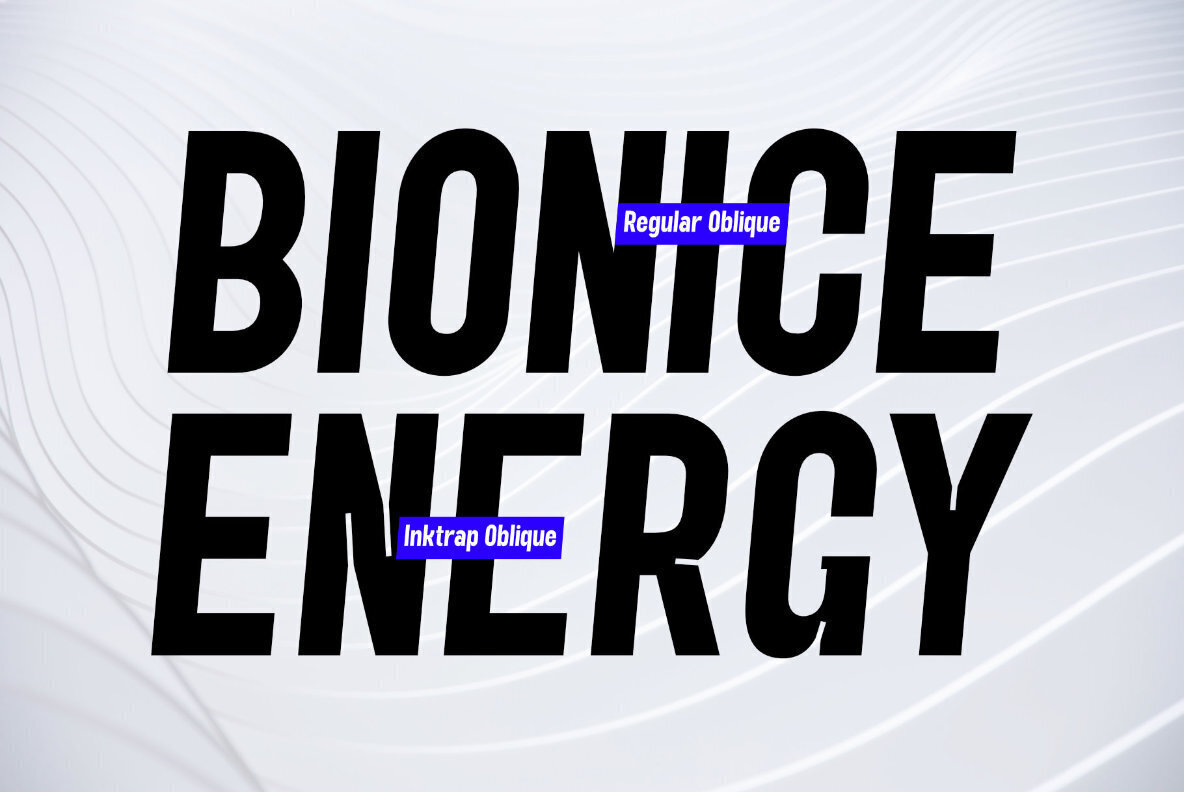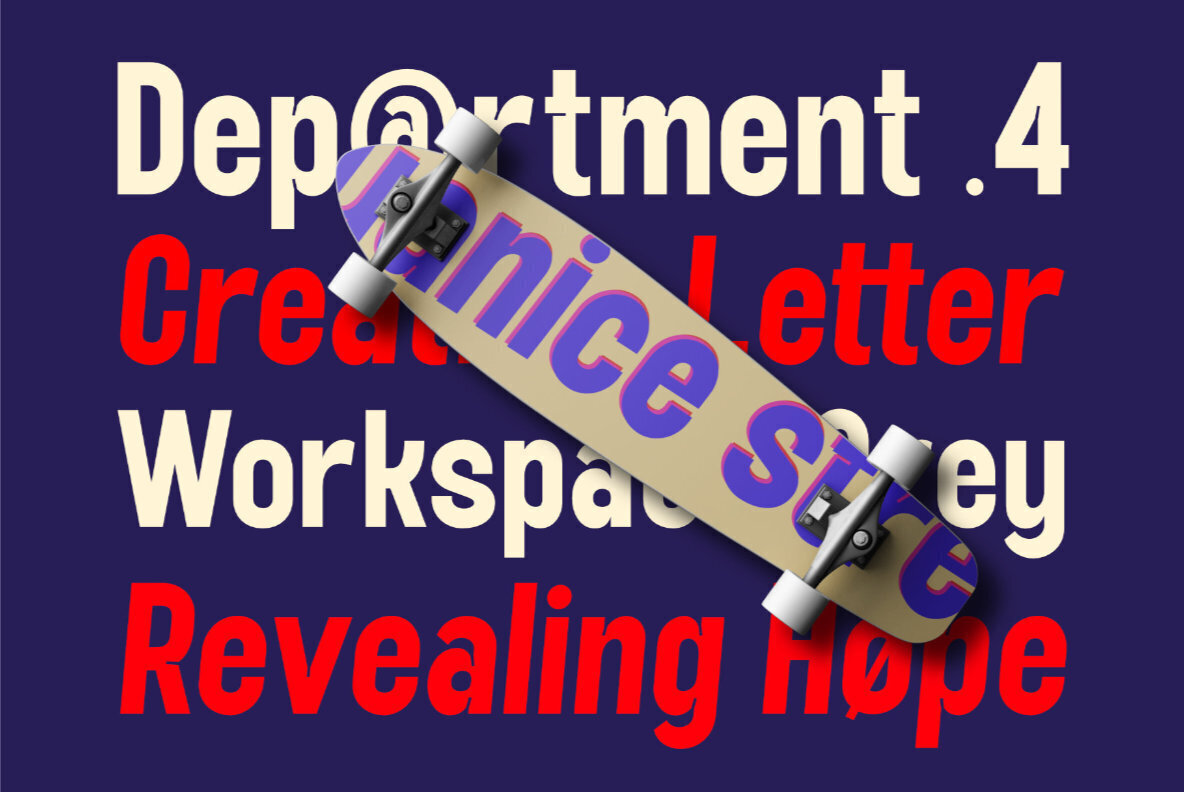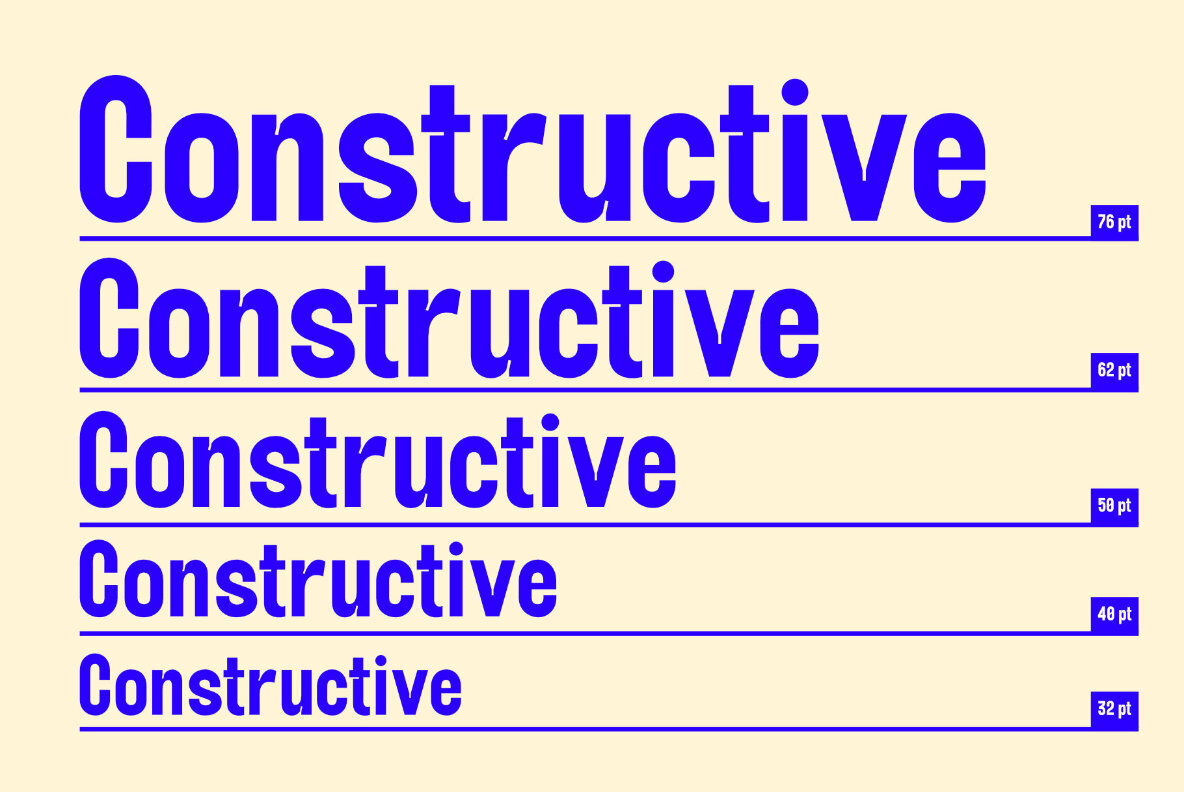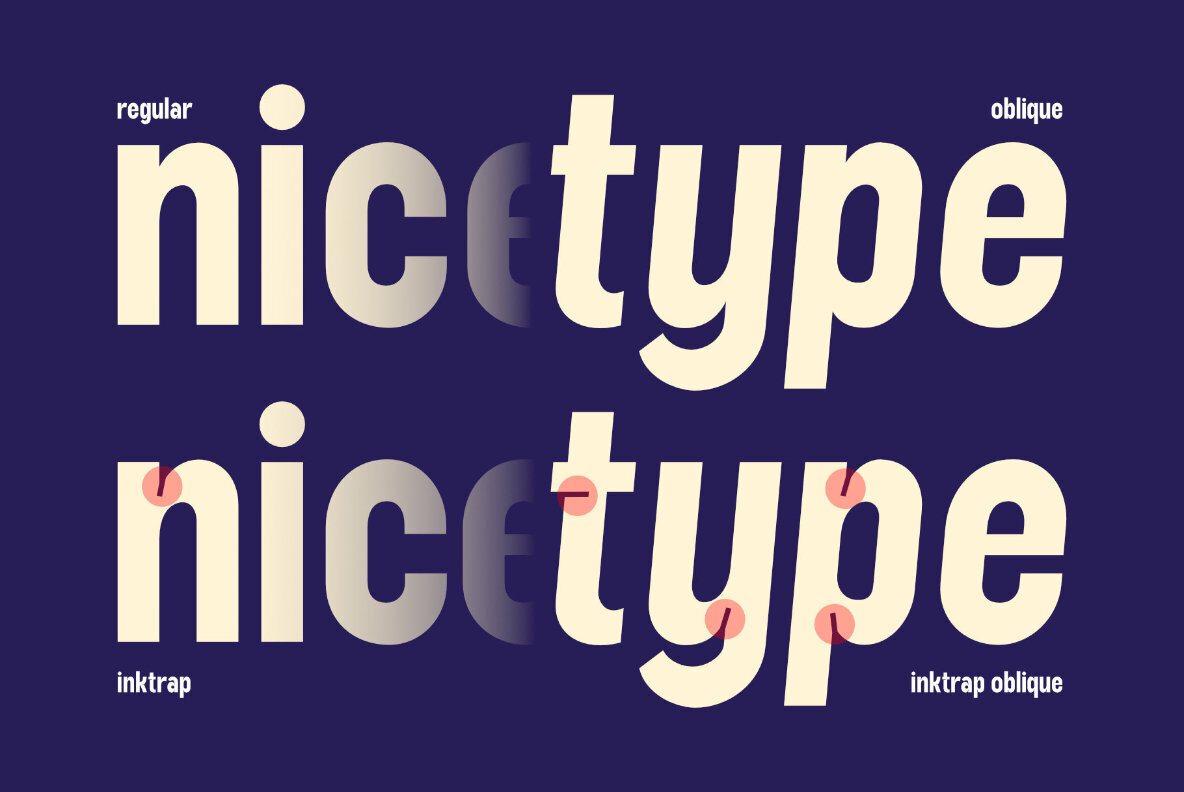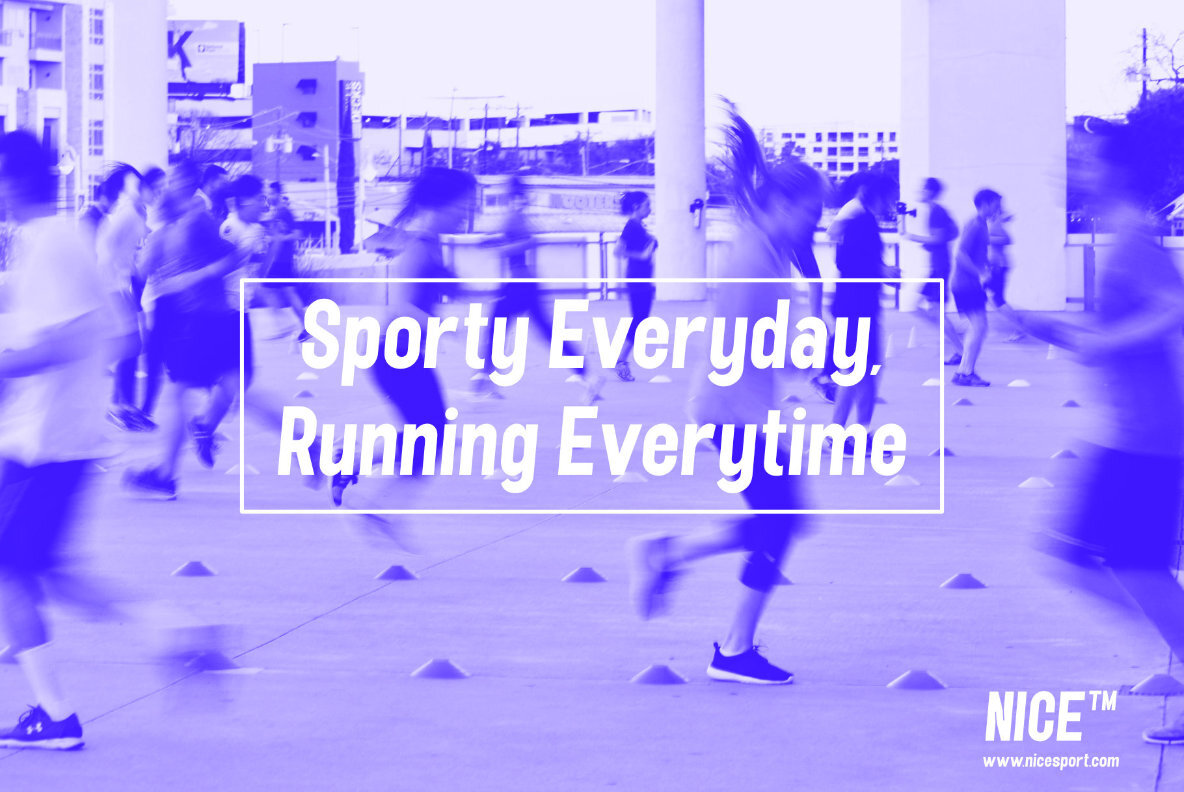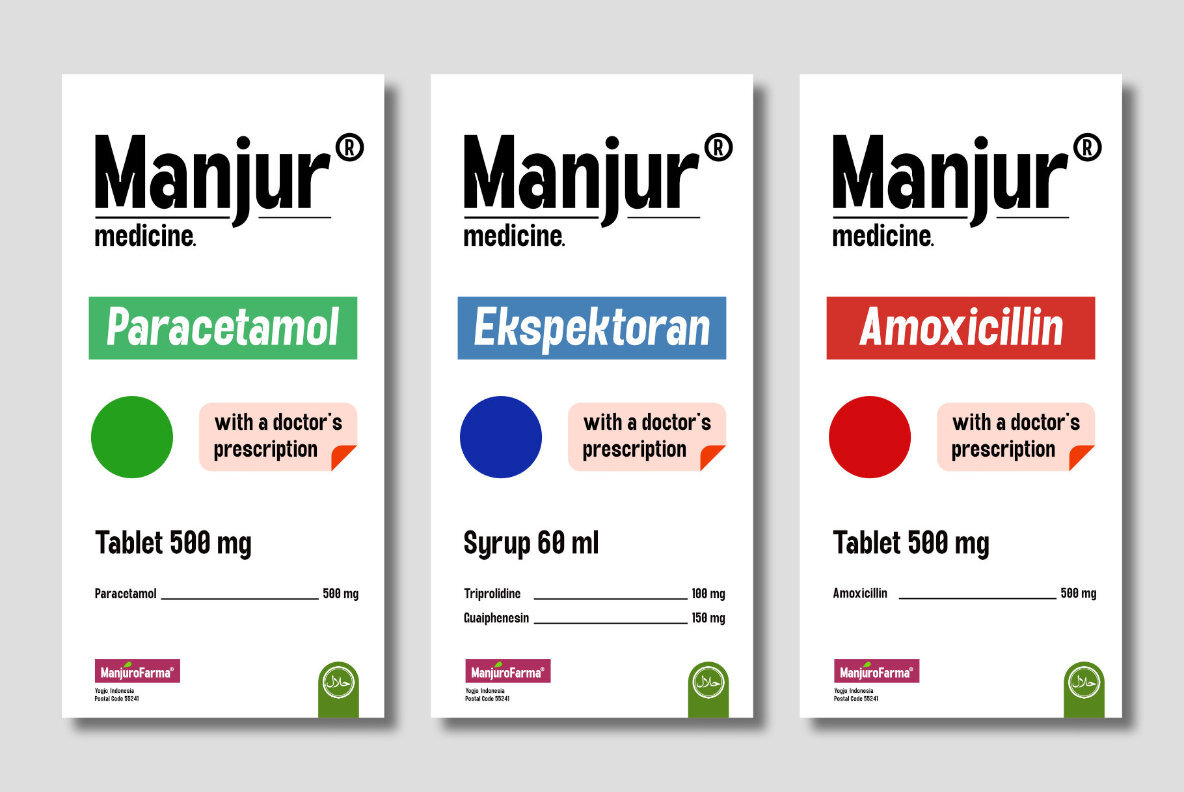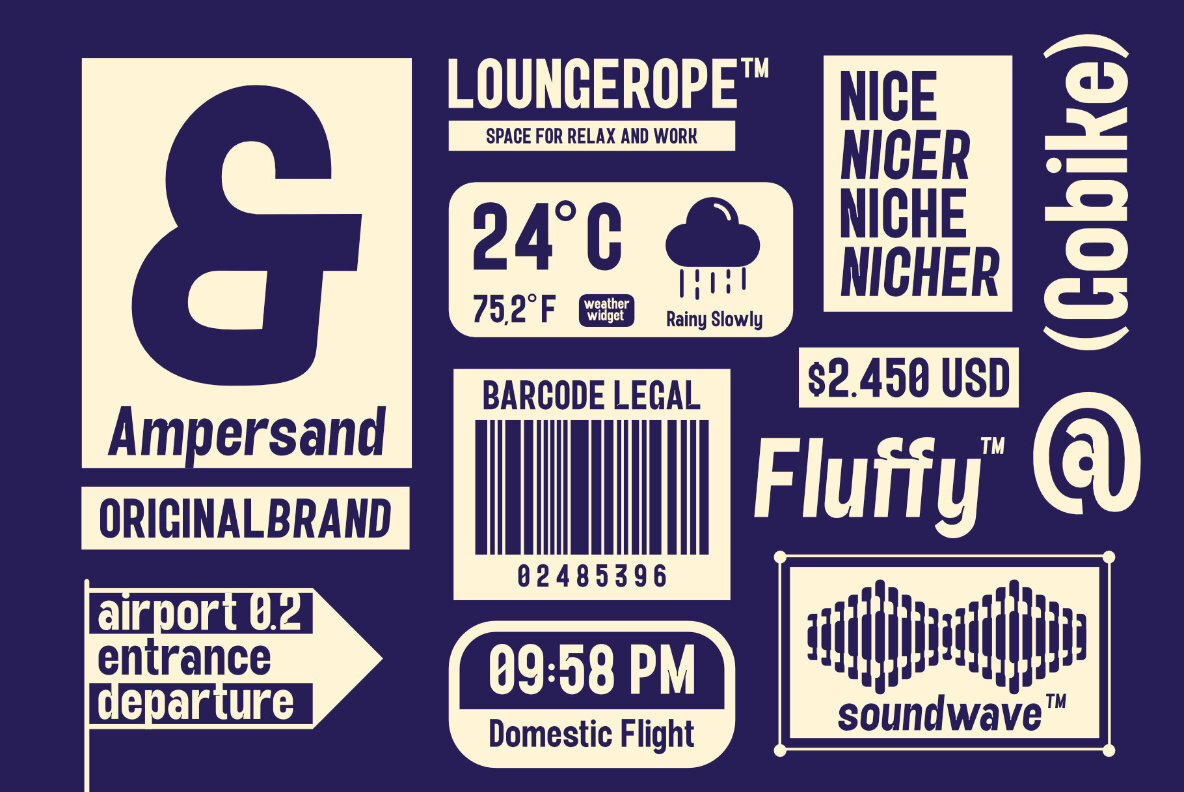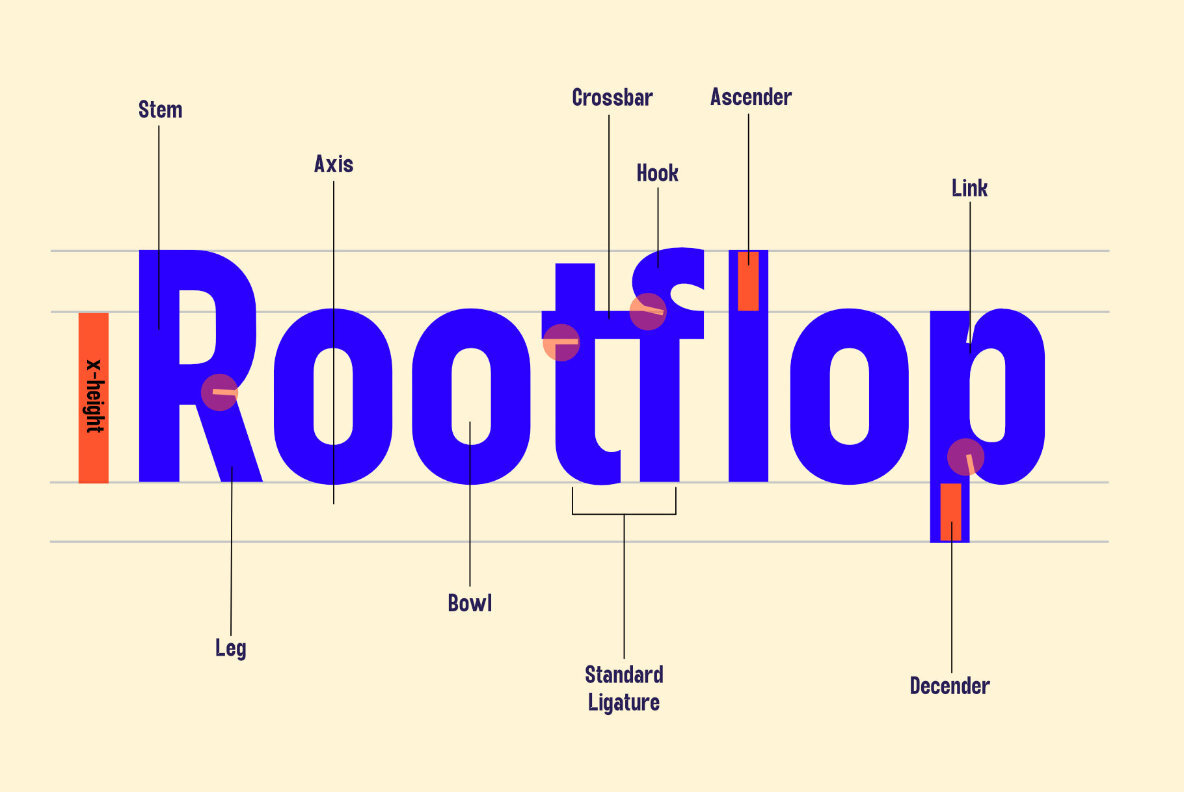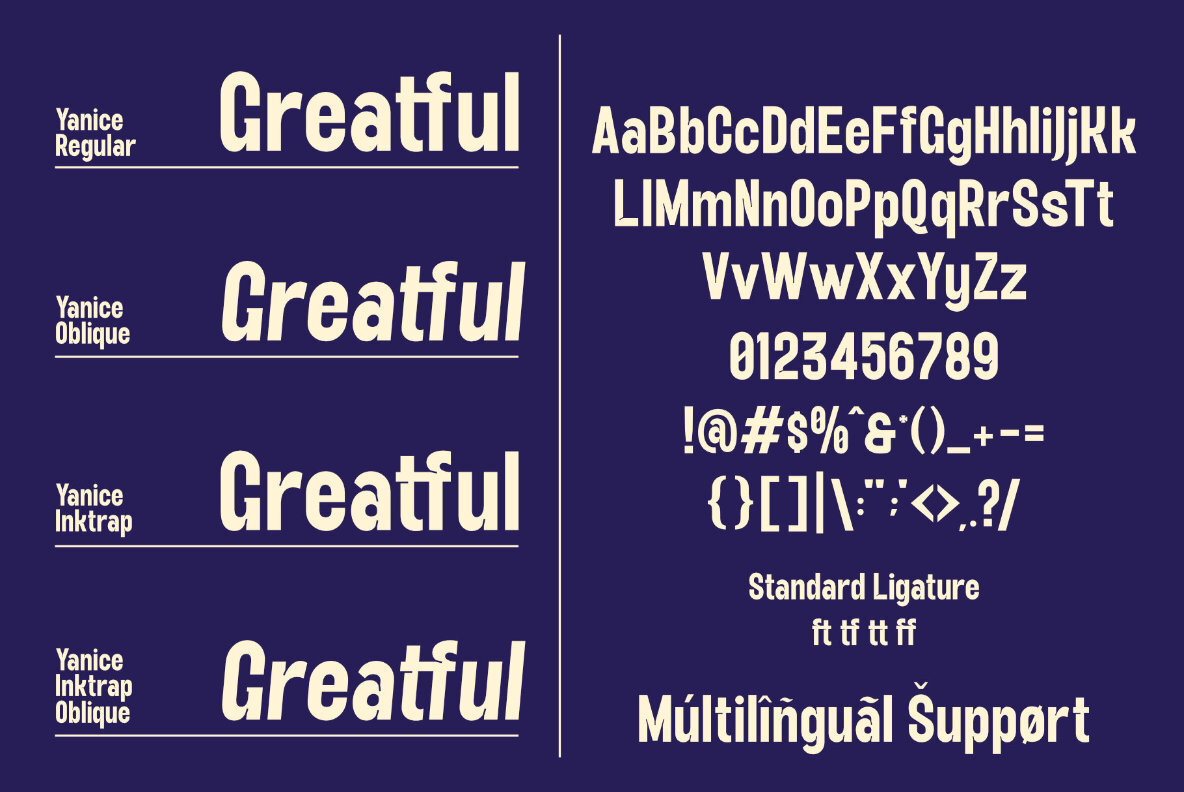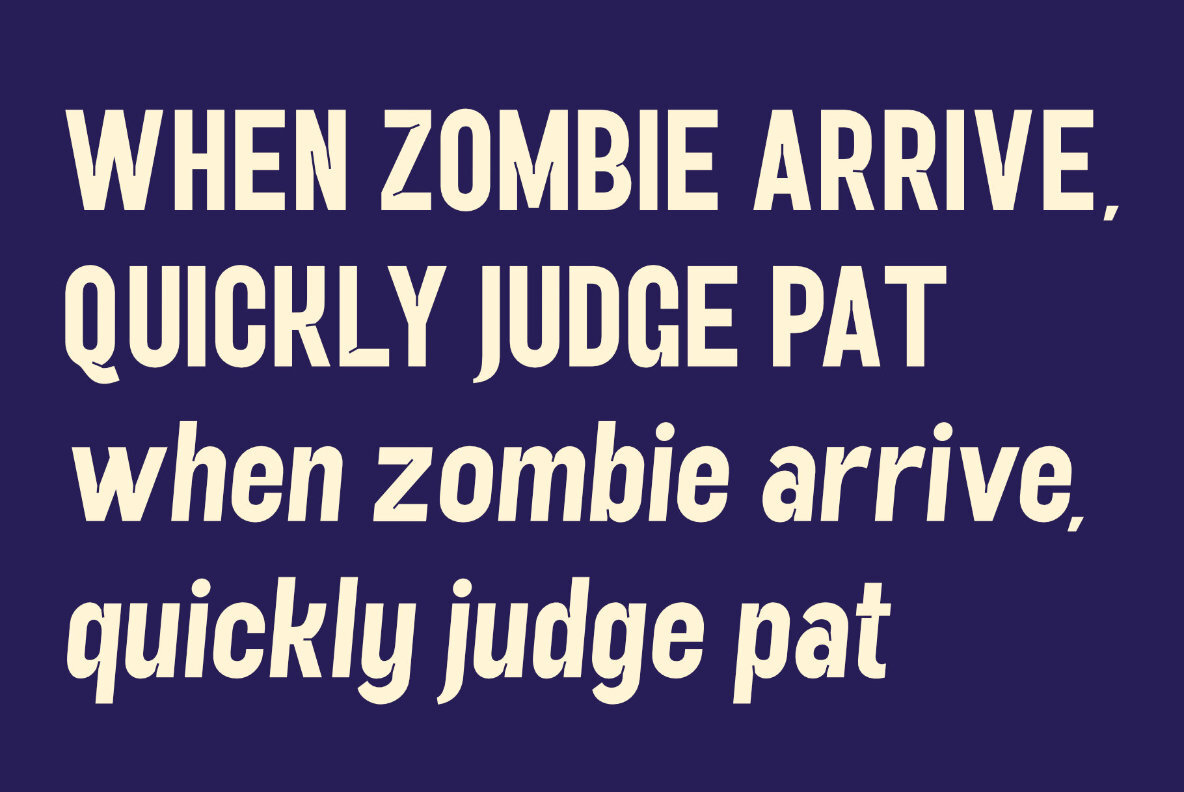
Yanice Font
Yanice Regular
Yanice Oblique
Yanice Inktrap
Yanice Inktrap Oblique
Yanice is a font that has been designed to be used in designs with modern and industrial themes. Yanice's character will give your work an elegant look, perfect for any project you are working on now or down the road!